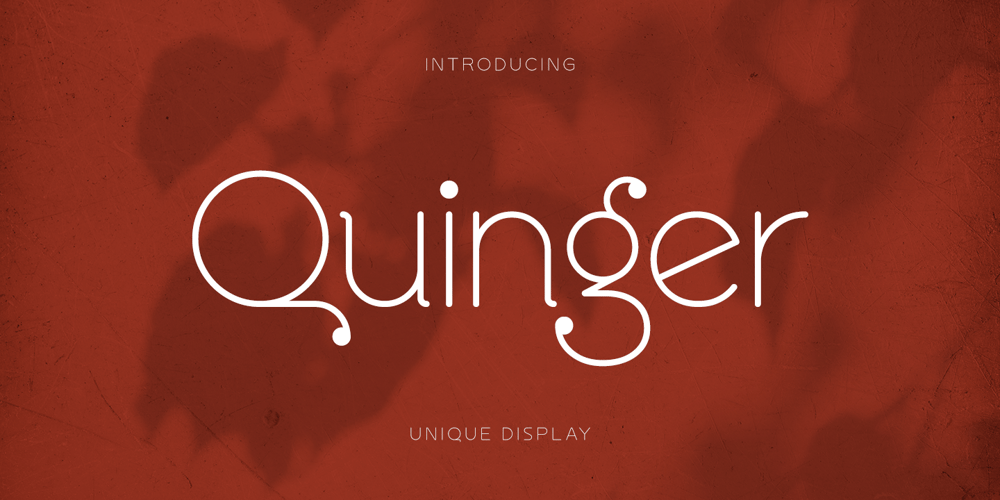
Quinger Font Family was designed by Abdul Malik Wisnu and published by Almarkha Type. Quinger contains 1 styles and family package options. Introducing Quinger – Unique Sans Display inspired by the famous minimalist logo perfect for the purposes of designing templates, brochures, videos, advertising branding, logos and more.